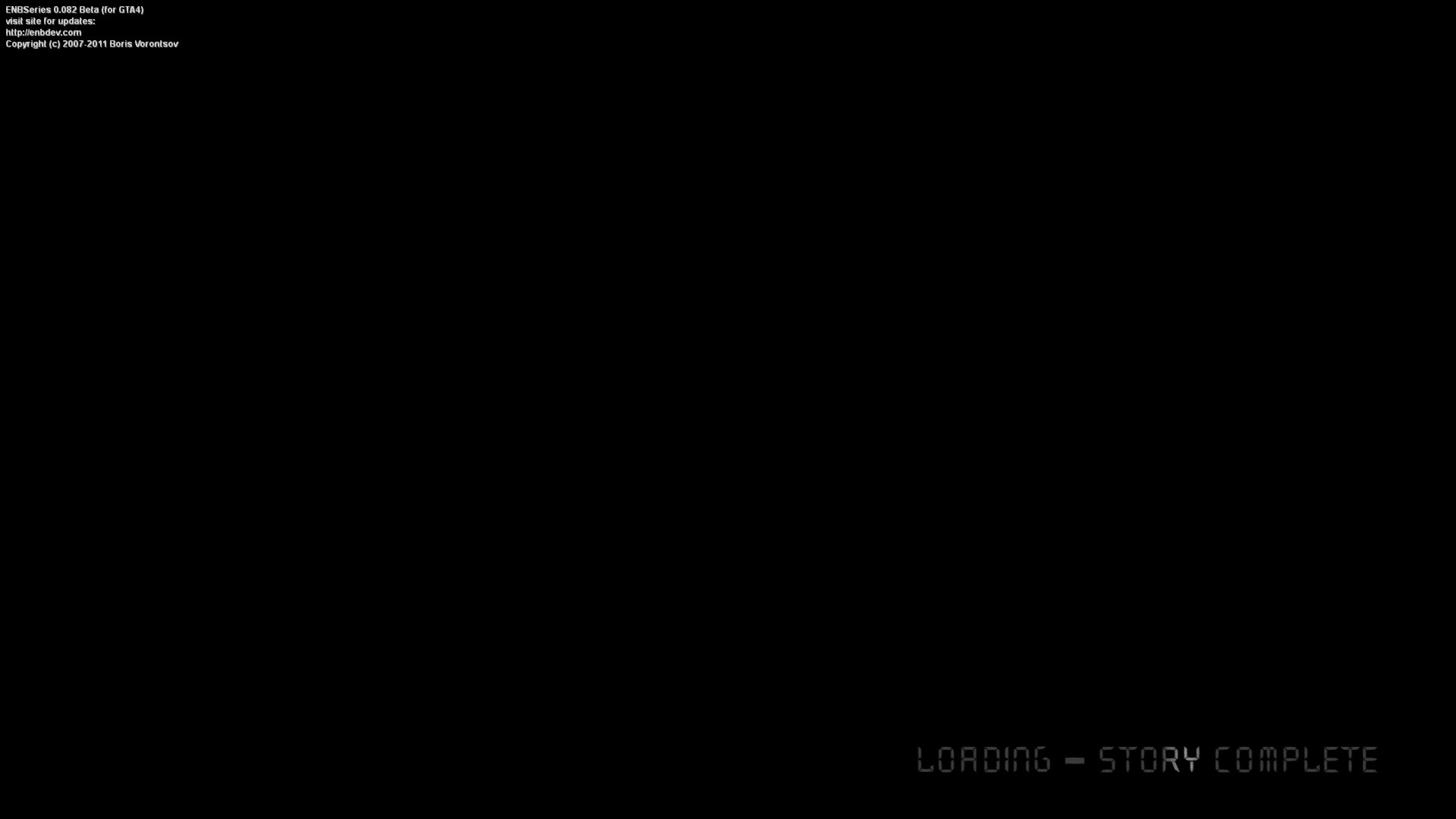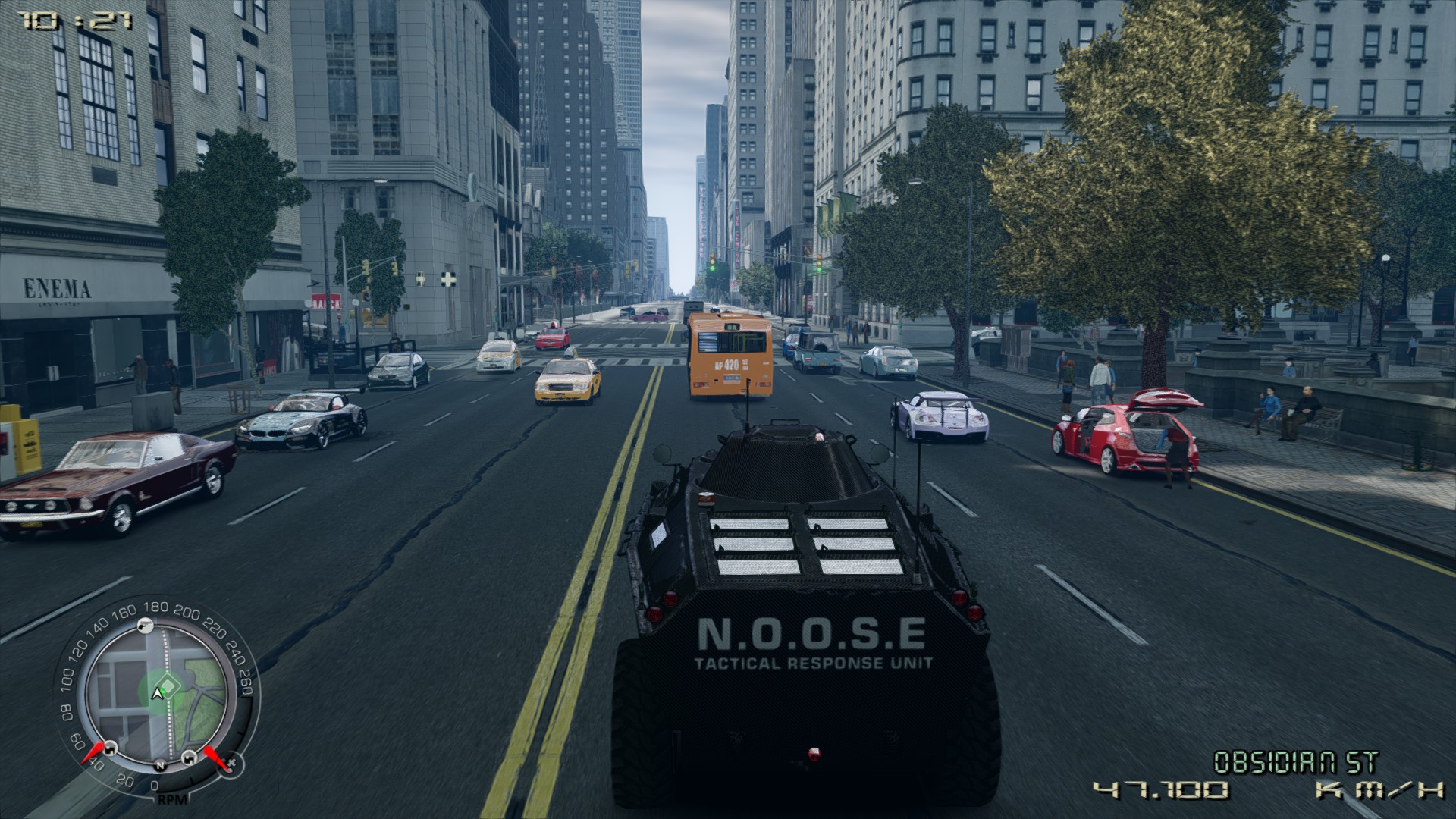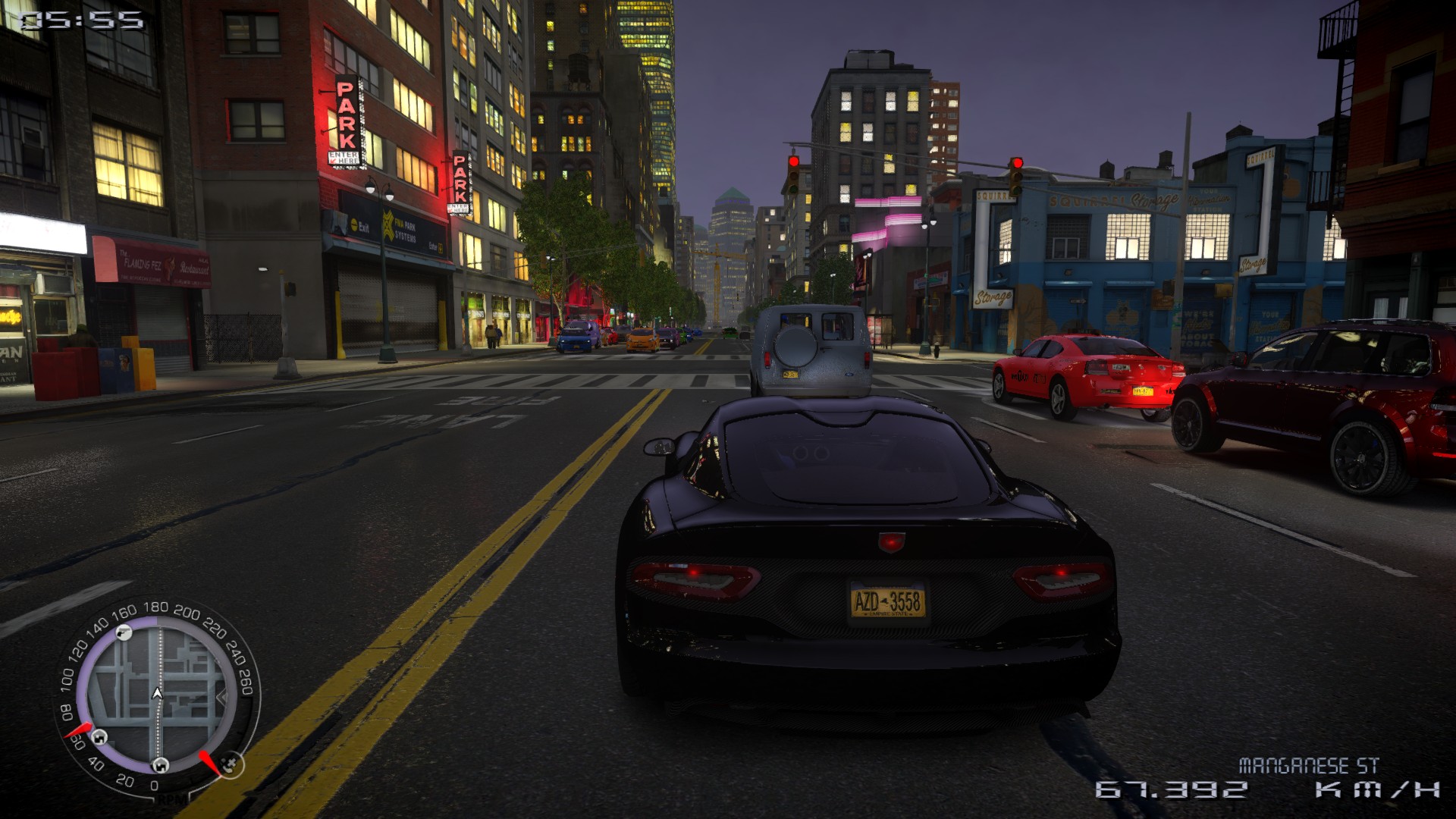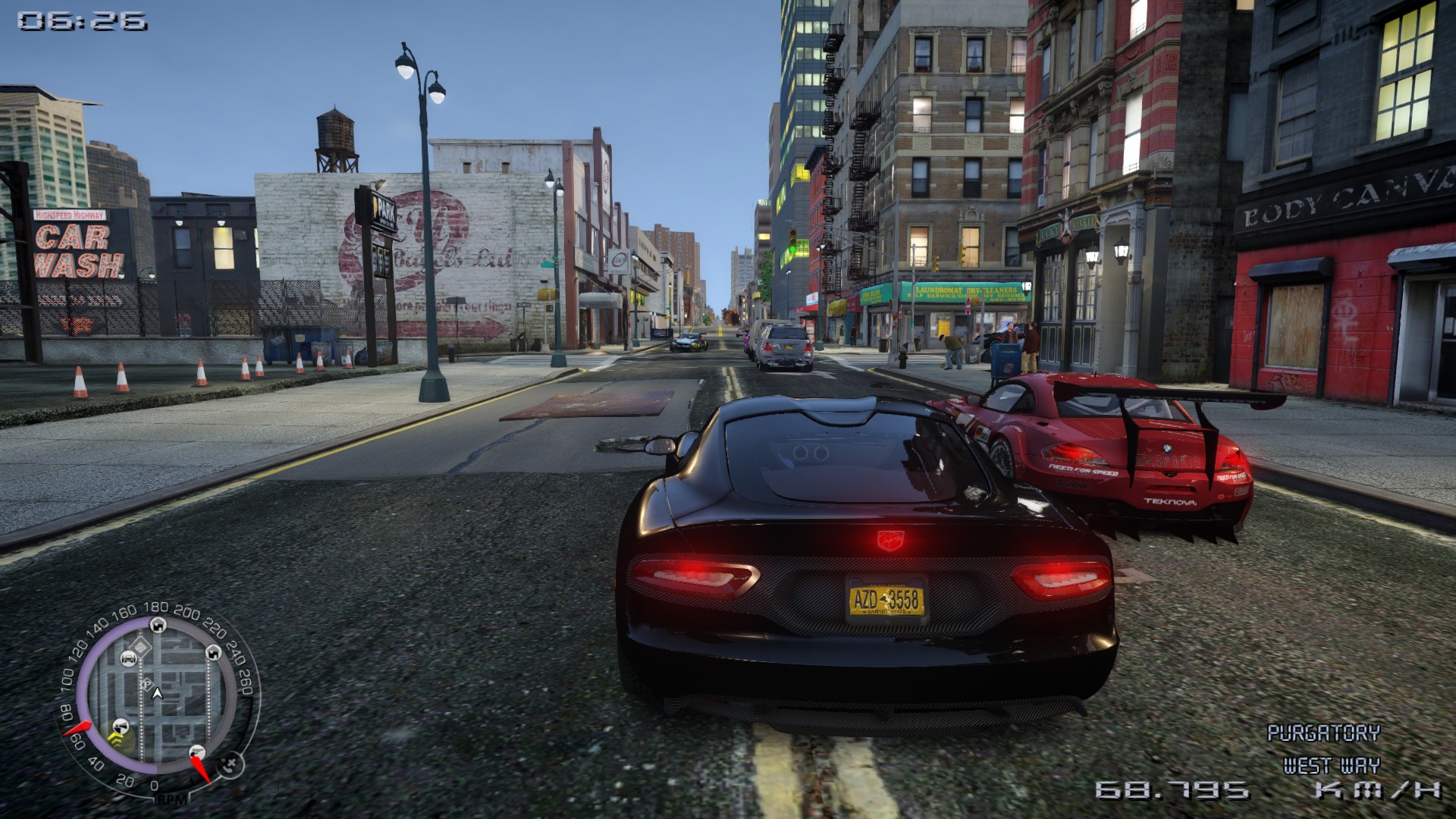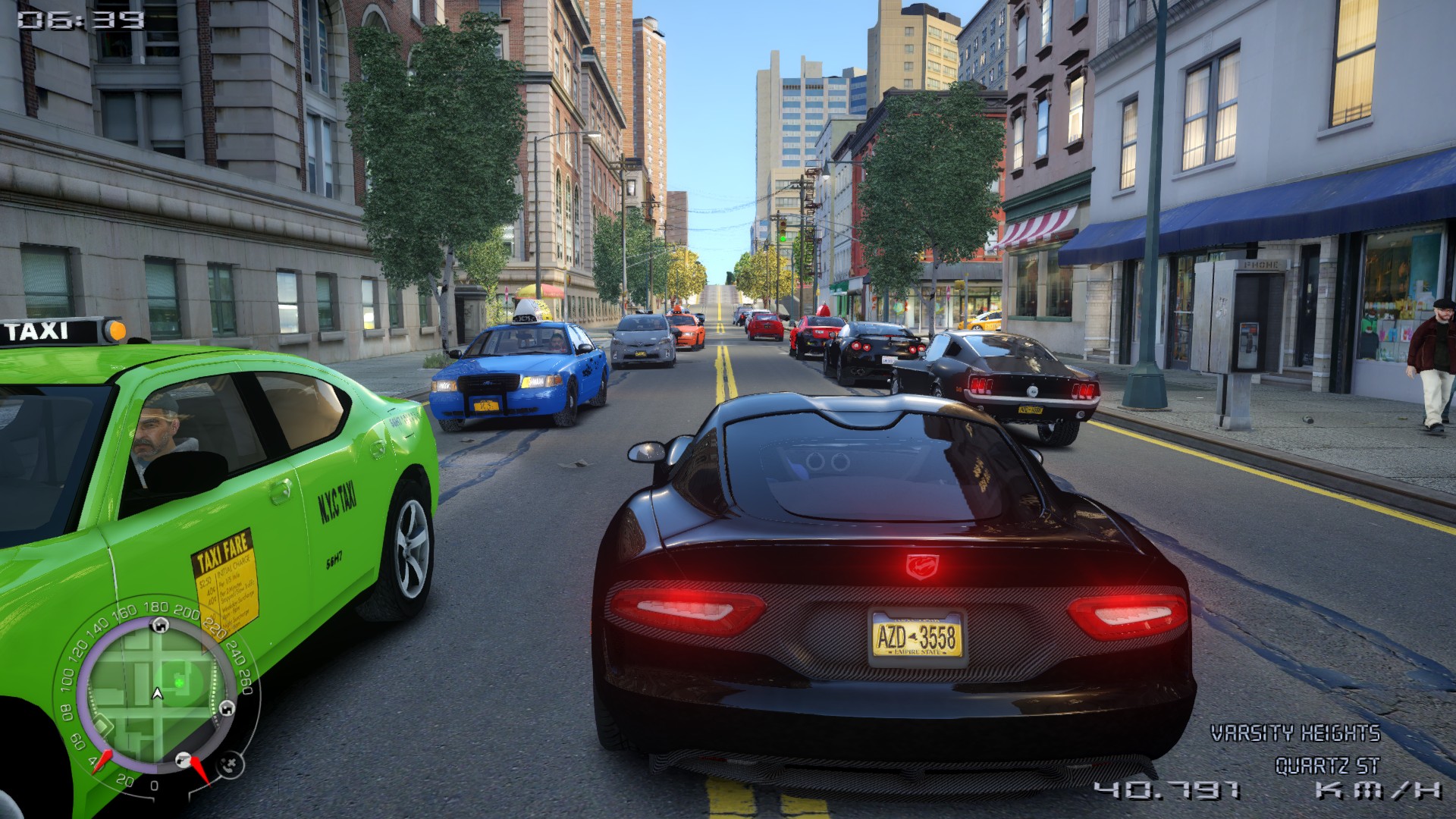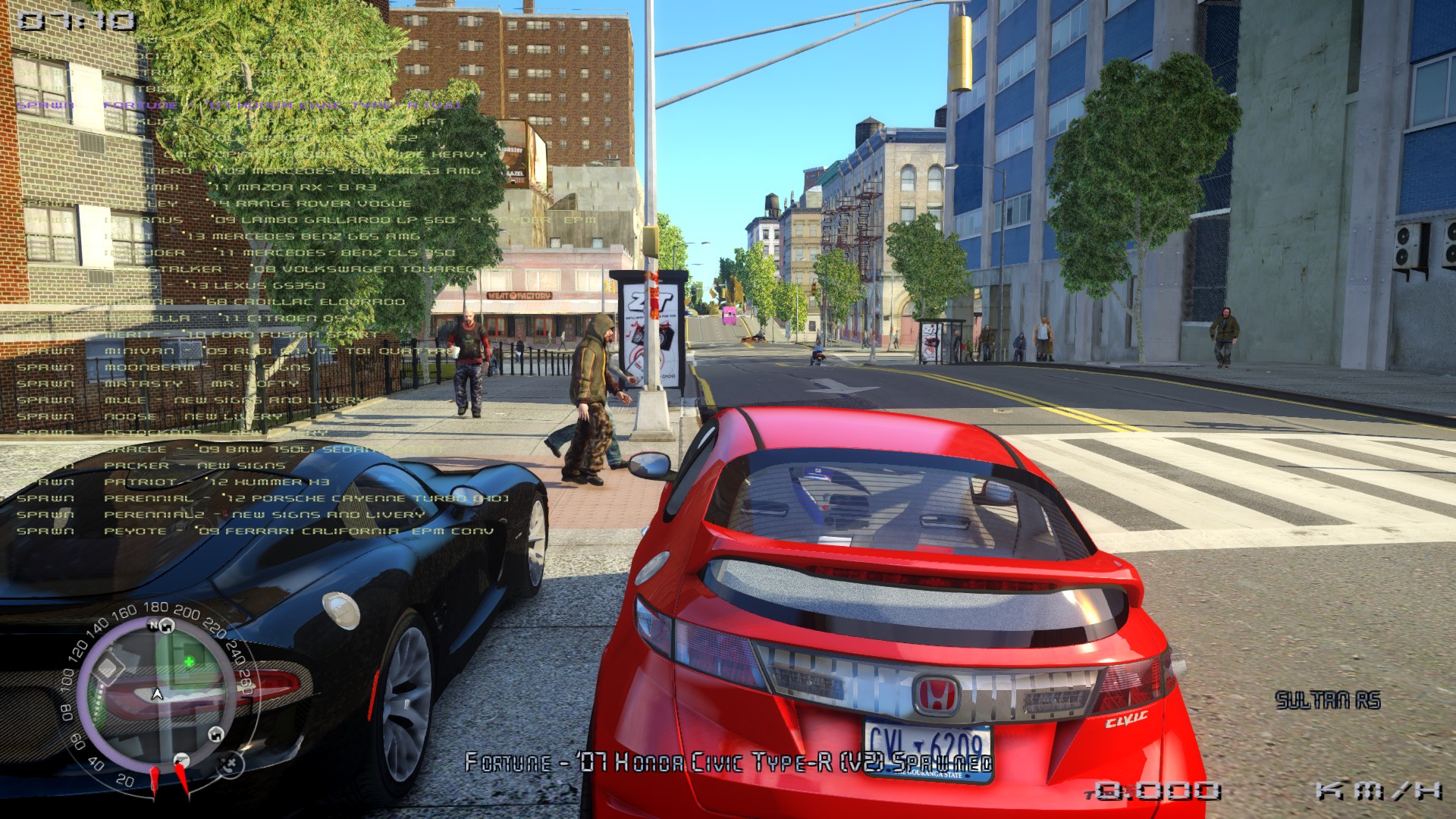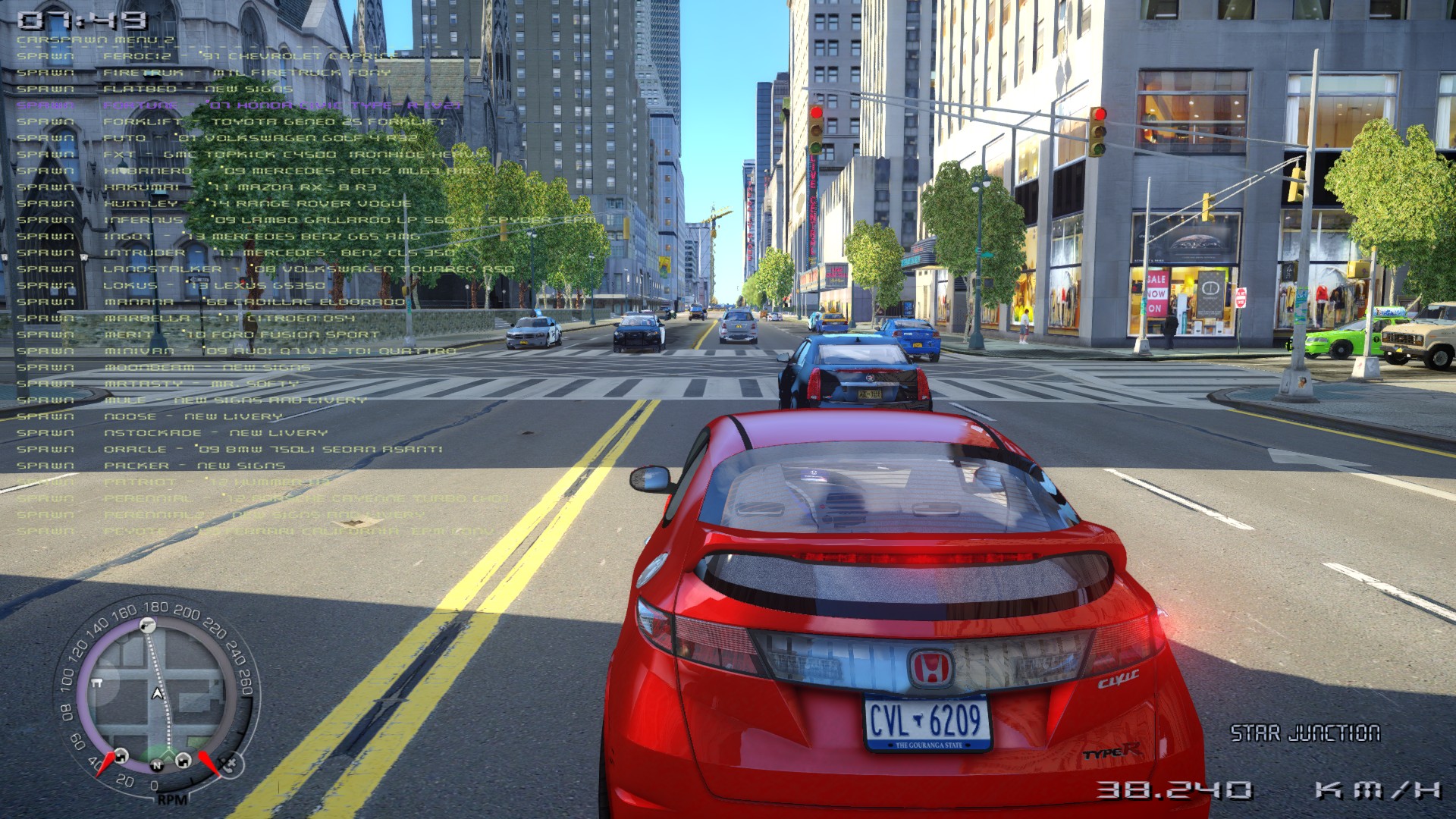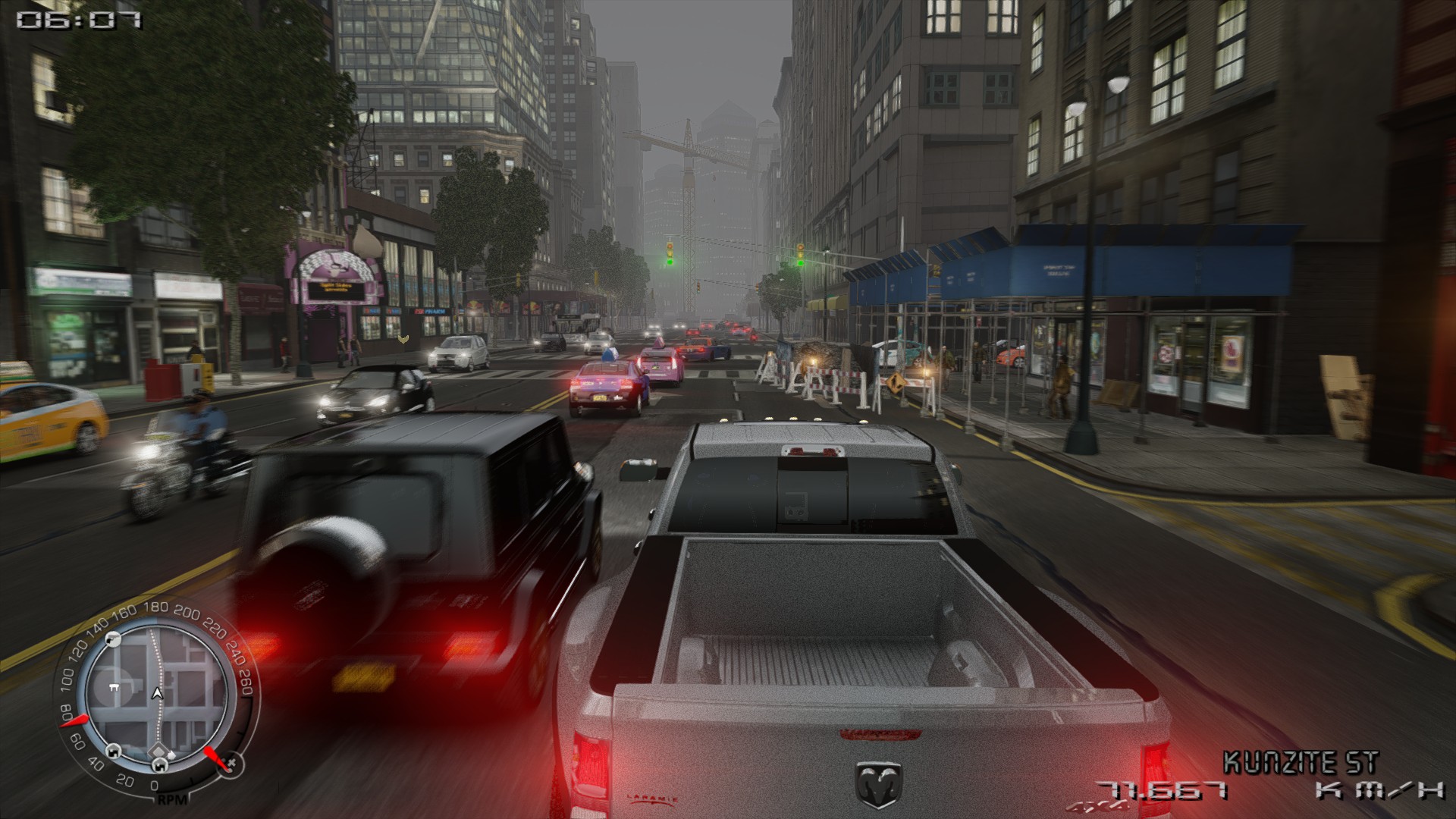
LCD Font (Update)
A GTA IV Mod
Quartz, LCD, LED Font for GTA IV HUD
If you like to use clock and digital speedometer, and you like LCD fonts, use this font for display.